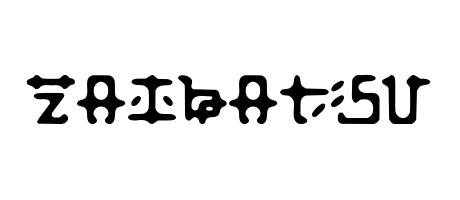
Zaibatsu
By Andreas Johansson
Zaibatsu, a bold, stylized typeface, exudes a powerful, almost menacing aura. Its characters are angular and slightly distorted, reminiscent of archaic runes or a futuristic, dystopian script. The serifs are sharp and aggressive, enhancing the font's commanding presence. It suggests strength, mystery, and a hint of rebellion.